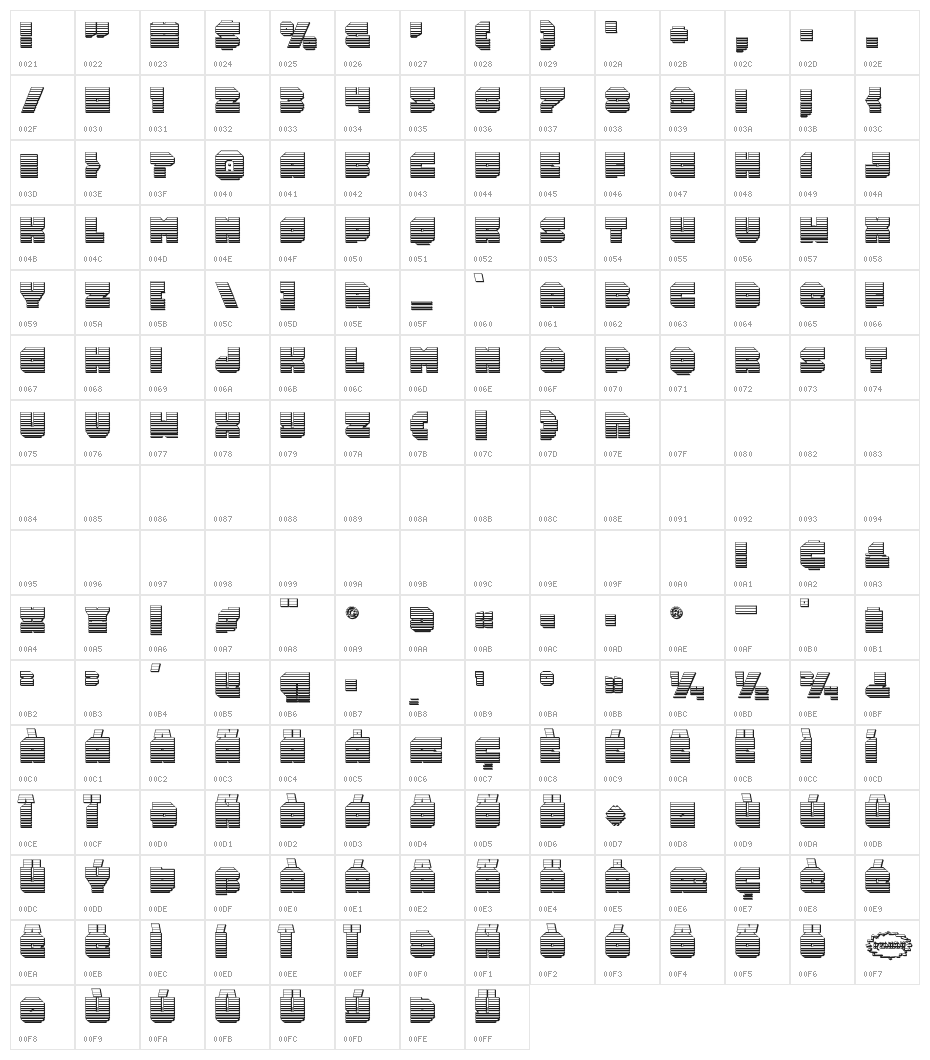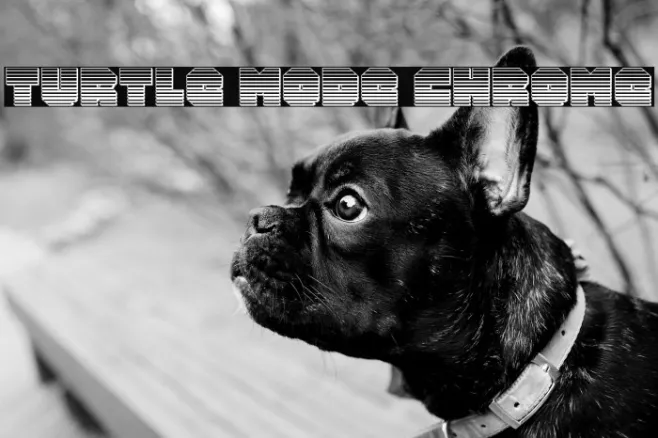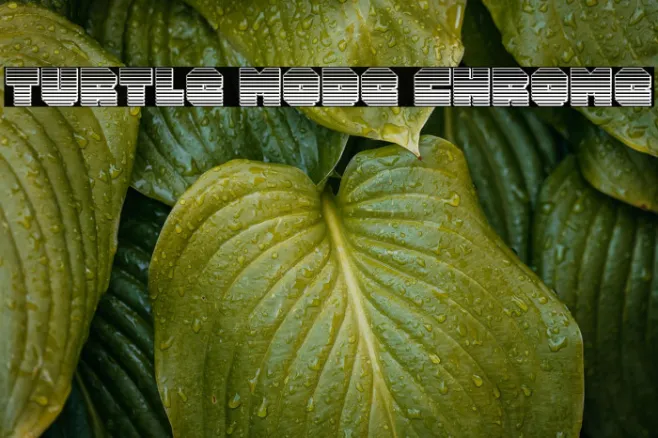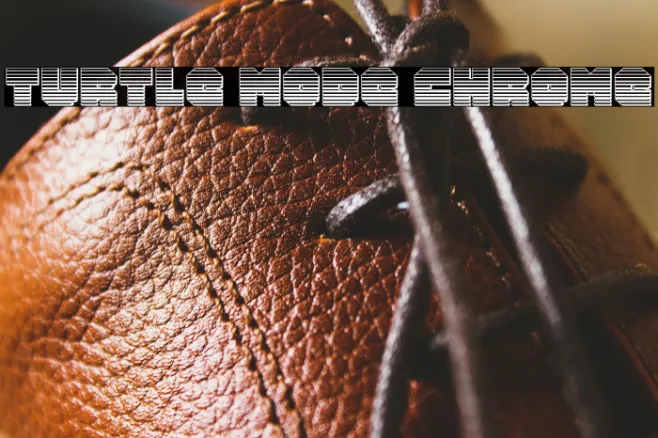
Turtle Mode Chrome Font
Turtle Mode Chrome Description
This font features a bold, geometric design with a unique layered effect, creating a sense of depth and dimension. Each character is constructed with multiple horizontal lines, giving it a futuristic and industrial appearance. The uppercase and lowercase letters maintain a consistent style, with sharp angles and a blocky structure. Numbers and special characters follow the same design principles, ensuring uniformity across all glyphs. The font's distinct style makes it ideal for attention-grabbing headlines and creative projects that require a modern and edgy look.
| Proposed Projects | Ideal for sci-fi themed posters, video game titles, branding for tech companies, and any project needing a modern, industrial touch. |